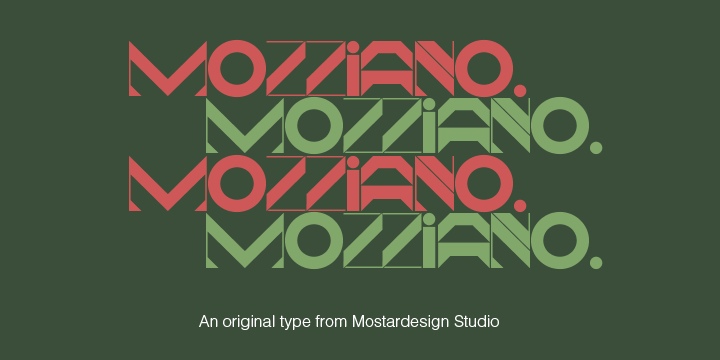
Mozziano Font
Mozziano Font is perfect for Italian restaurant branding, authentic pizzeria signage, Mediterranean lifestyle campaigns, traditional food packaging, artisanal cheese marketing, European bistro menus, culinary heritage projects, Italian wine branding, and classic European hospitality materials.
What makes Mozziano Font exciting is its delicious embodiment of Italian culinary tradition that captures the warmth and authenticity of Mediterranean food culture through carefully crafted letterforms that seem to be seasoned with generations of culinary wisdom. The font features robust, appetizing shapes with Italian-inspired details that evoke the rich flavors and time-honored recipes found in traditional Italian kitchens. Its authentic character and gastronomic appeal make it perfect for brands that want to communicate culinary excellence, heritage cooking, and the passionate Italian approach to food while creating memorable experiences that celebrate the joy of sharing exceptional meals with famiglia.
Mozziano Font family includes various flavorful weights such as Light, Regular, Medium, and Bold variations, often featuring Italian-inspired stylistic alternates and culinary decorative elements. The family may include traditional symbols, Mediterranean ornaments, and food-themed ligatures that enhance the font's authentic aesthetic, providing designers with comprehensive options for creating appetizing typographic compositions that honor Italian culinary heritage and Mediterranean dining traditions.